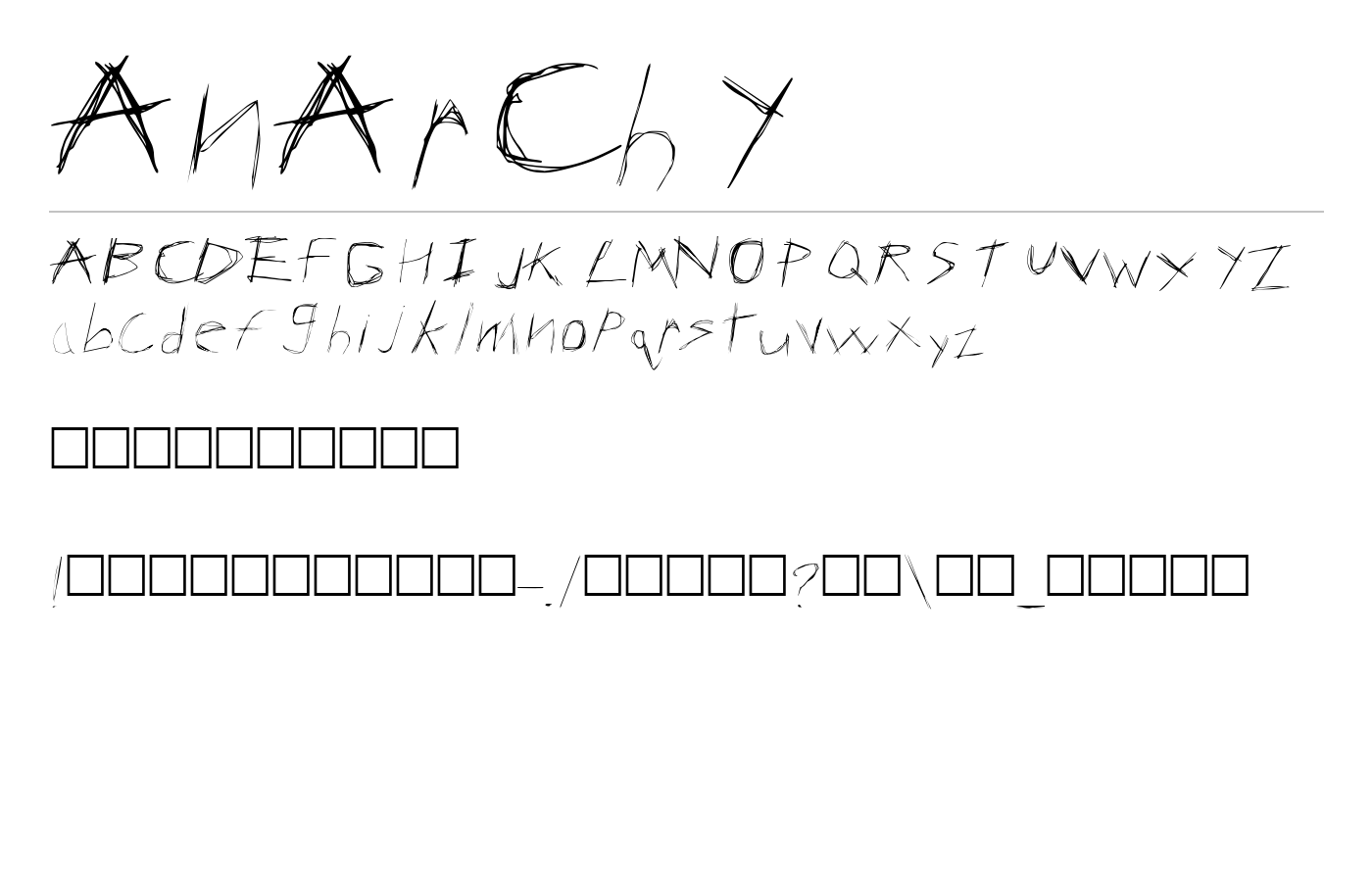
AnArChY is a distressed, hand-drawn sans serif font with a chaotic and rebellious character, featuring irregular, sketchy strokes that create a raw, edgy aesthetic. Its narrow, delicate letterforms carry an anarchic energy, making it ideal for edgy, alternative, or underground branding, posters, and creative projects seeking a dynamic, nonconformist vibe. This font works best in display uses where its unique, rough style can stand out and convey strong personality.
AnArChY Font
About AnArChY Font